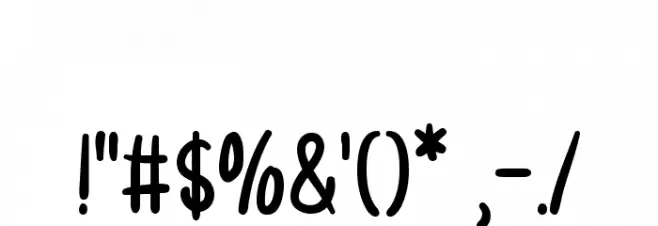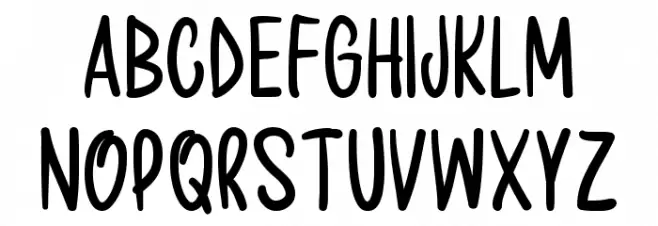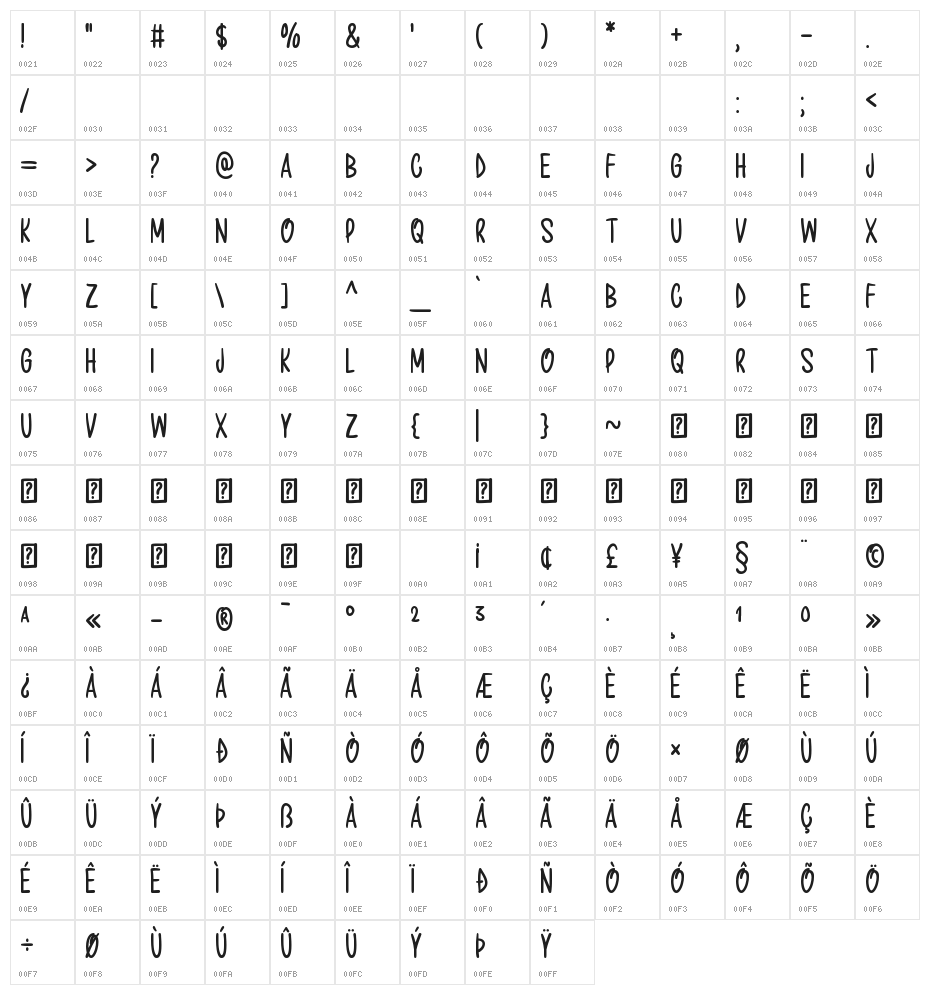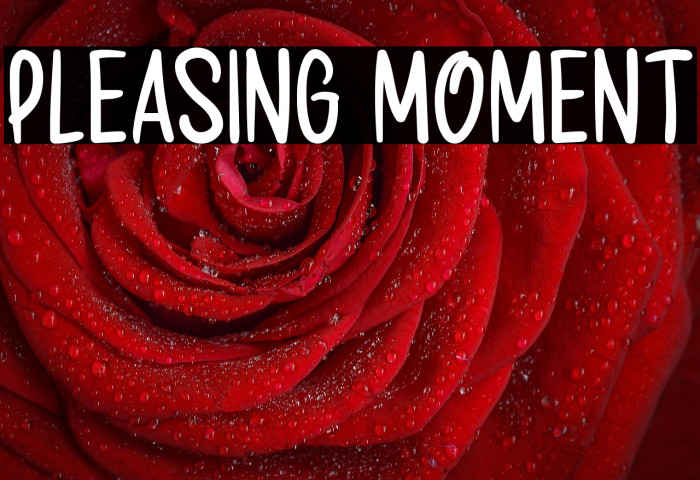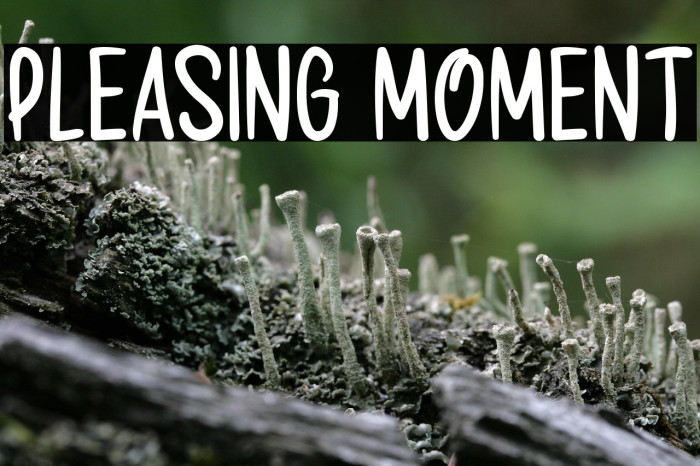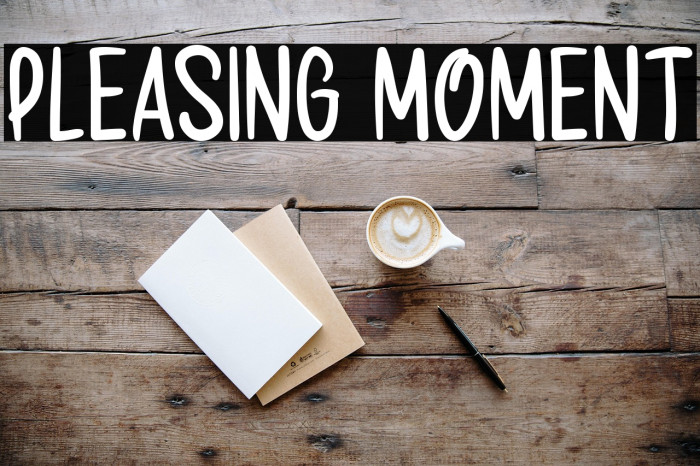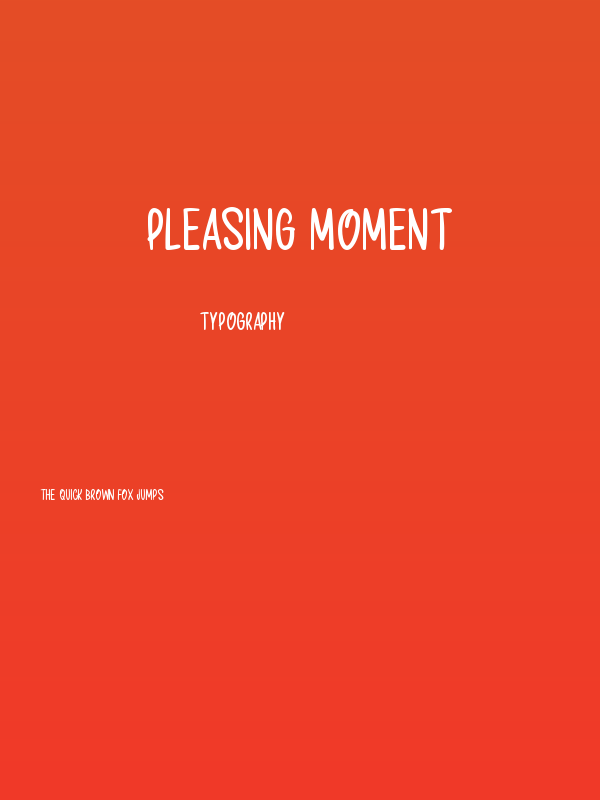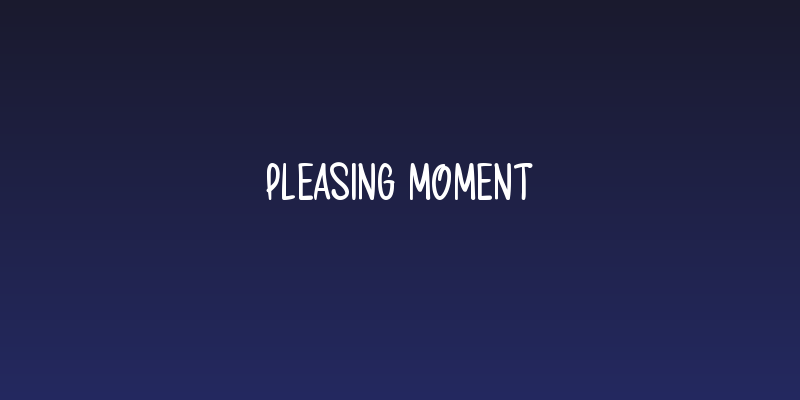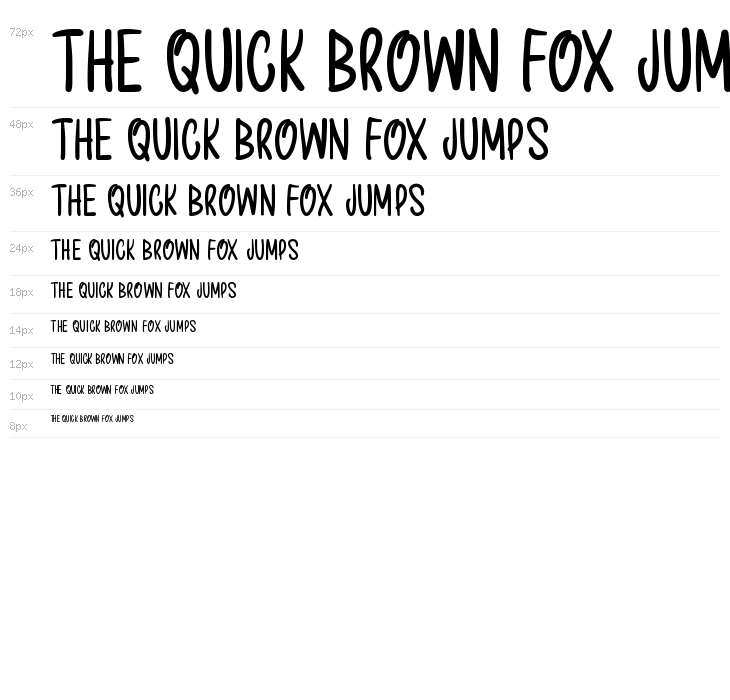
Pleasing Moment Font
Pleasing Moment Description
A playful, handwritten font with a casual and friendly appearance, featuring rounded edges and consistent stroke width.
| Overall Style | Casual |
| Use Case | Headlines, Informal text, Branding |
| Proposed Projects | Greeting cards, children's books, casual branding. |